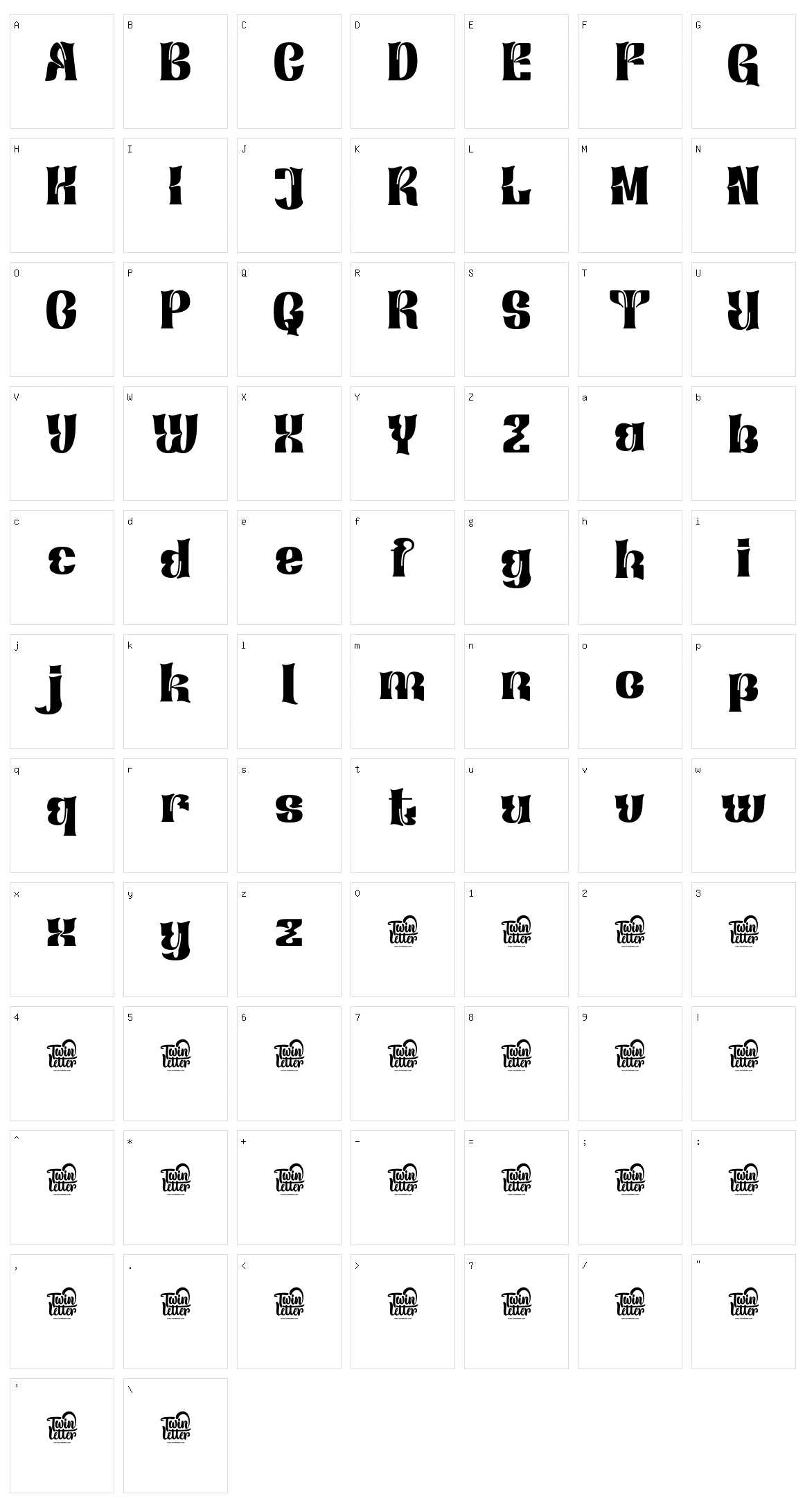
The free font Xagetif is carefully designed by twinletter, showcasing a thoughtful balance of creativity and usability and falls under the Groovy font style. When you download the ZIP file, it contains only 15.34 KB of font files, making it lightweight and quick to download. Please review the license details below to understand permitted usage and distribution rights. If license information is not available, we recommend using this font for personal projects only or contacting the author directly for commercial usage permissions.